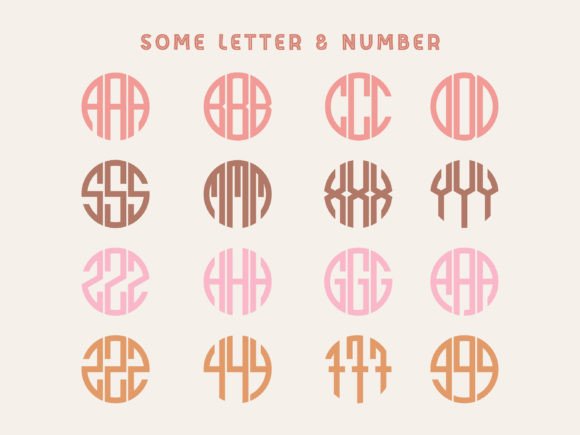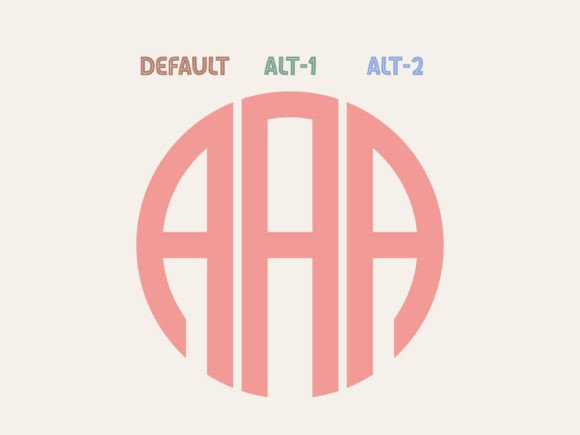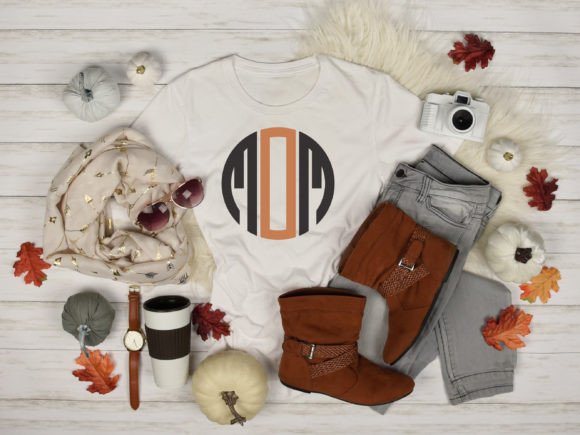
Introduction to Real Monogram Font
Real Monogram is a stylish and eye-catching font that is perfect for various creative projects.
Its unique design adds a touch of elegance and uniqueness to any design or craft idea .
Why Choose Real Monogram Font?
Real Monogram Font offers exceptional quality and versatility, making it a valuable addition to your design toolkit. Whether you’re creating for personal projects or commercial use, Real Monogram Font delivers professional results.